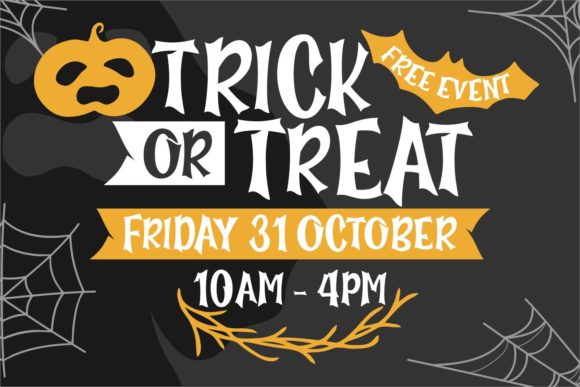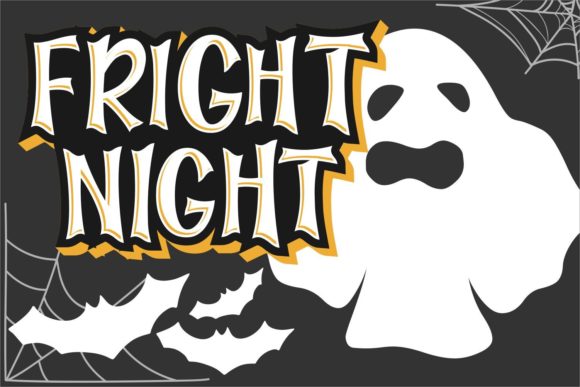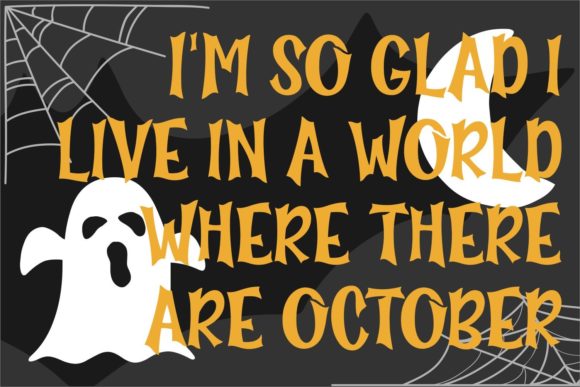
Introduction to Little Miss Spooky Font
Little Miss Spooky is a cool, fun and thick lettered display font.
Whether you are using it for cartoon-related designs, children games, quotes, titles, brand names, book covers, posters, or just any creation that requires a touch of joy, this font is a great choice .